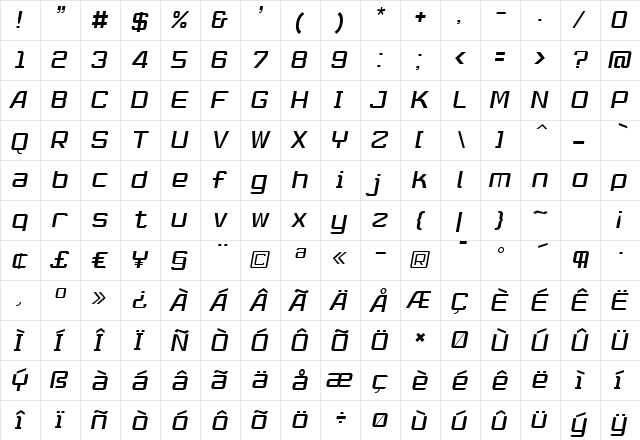
RobustikLight Oblique Regular Font Preview
Design Context for RobustikLight Oblique Typeface
RobustikLight Oblique offers clean, dependable letterforms without strong stylistic allegiance, making it a practical choice for designers who need flexibility. Its italic angle brings a sense of urgency and motion to the letterforms. The delicate stroke weight brings airiness and refinement to layouts.
Pro Tip: Try RobustikLight Oblique for annotation and caption copy alongside an upright companion — the contrast in angle creates a dynamic but ordered typographic system.